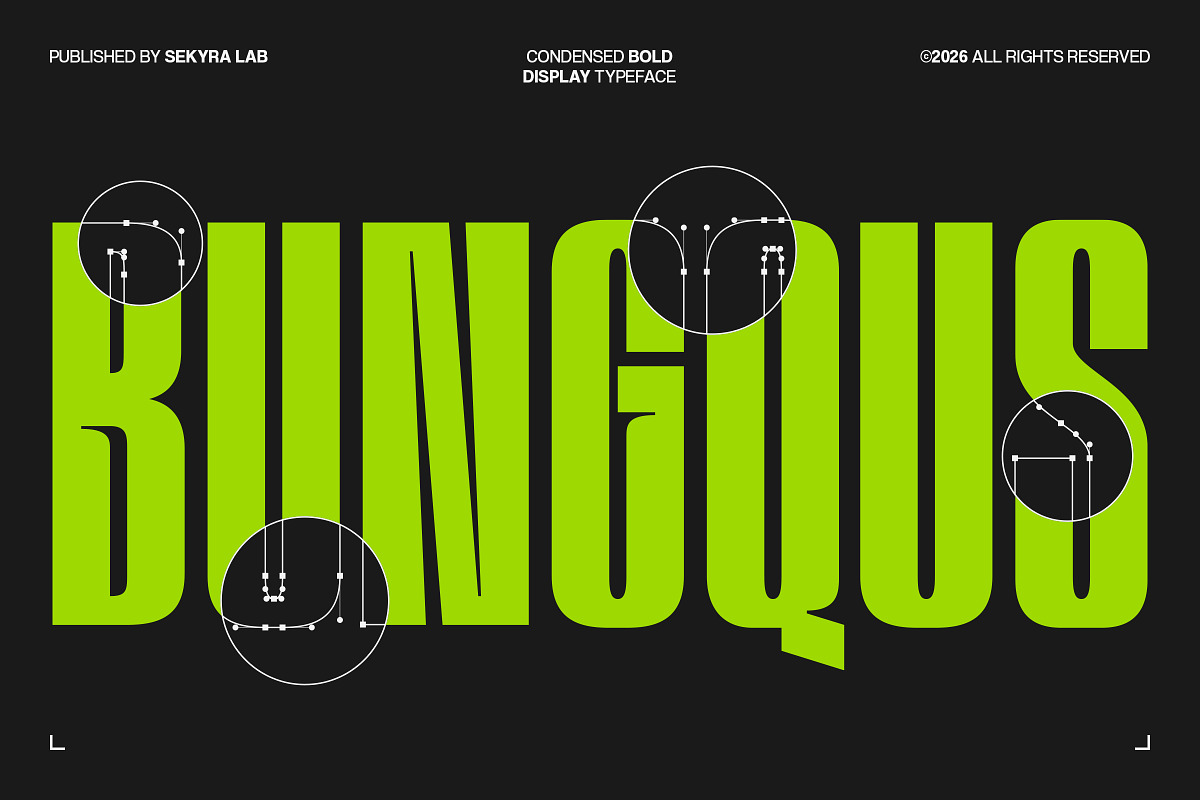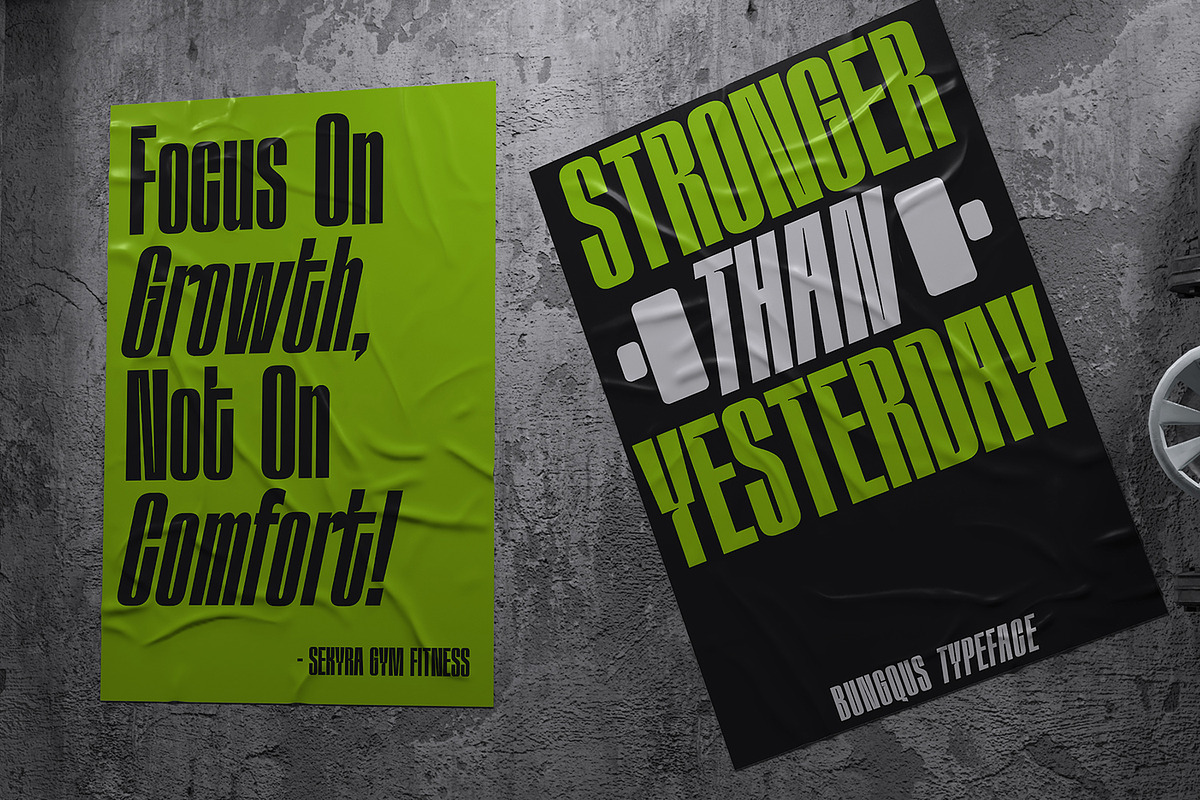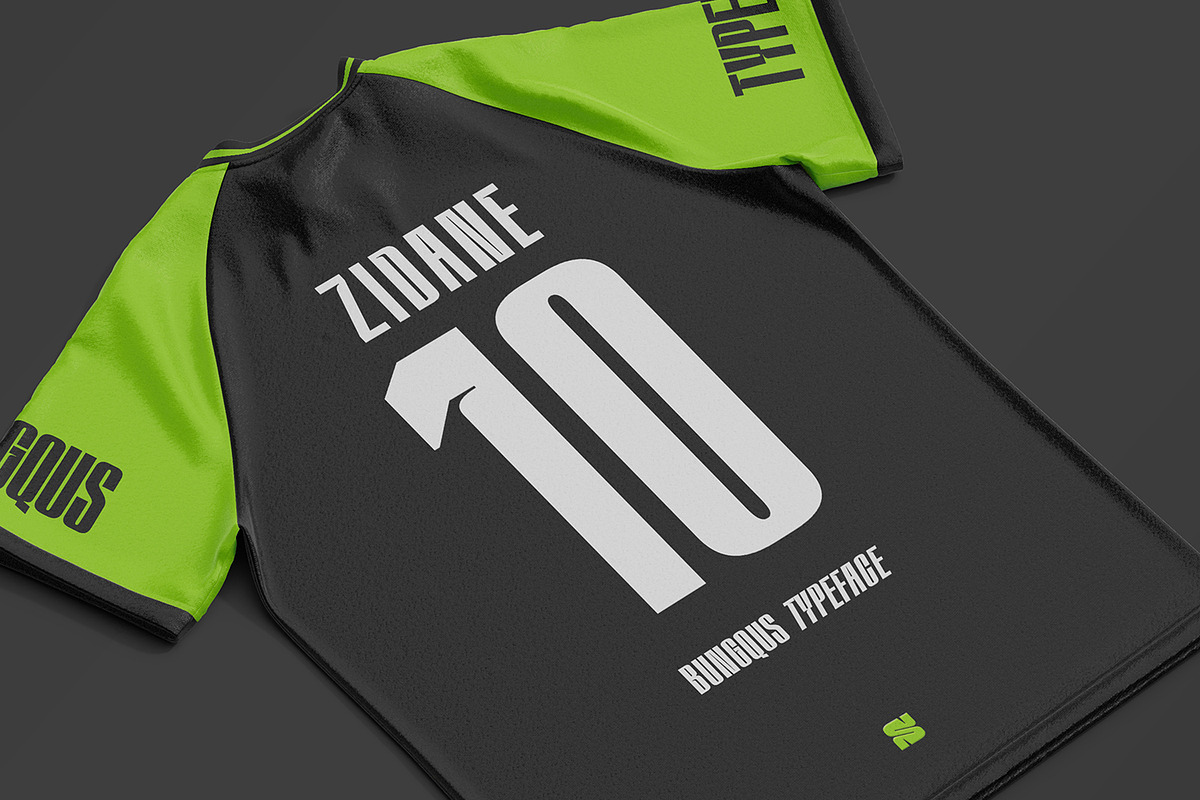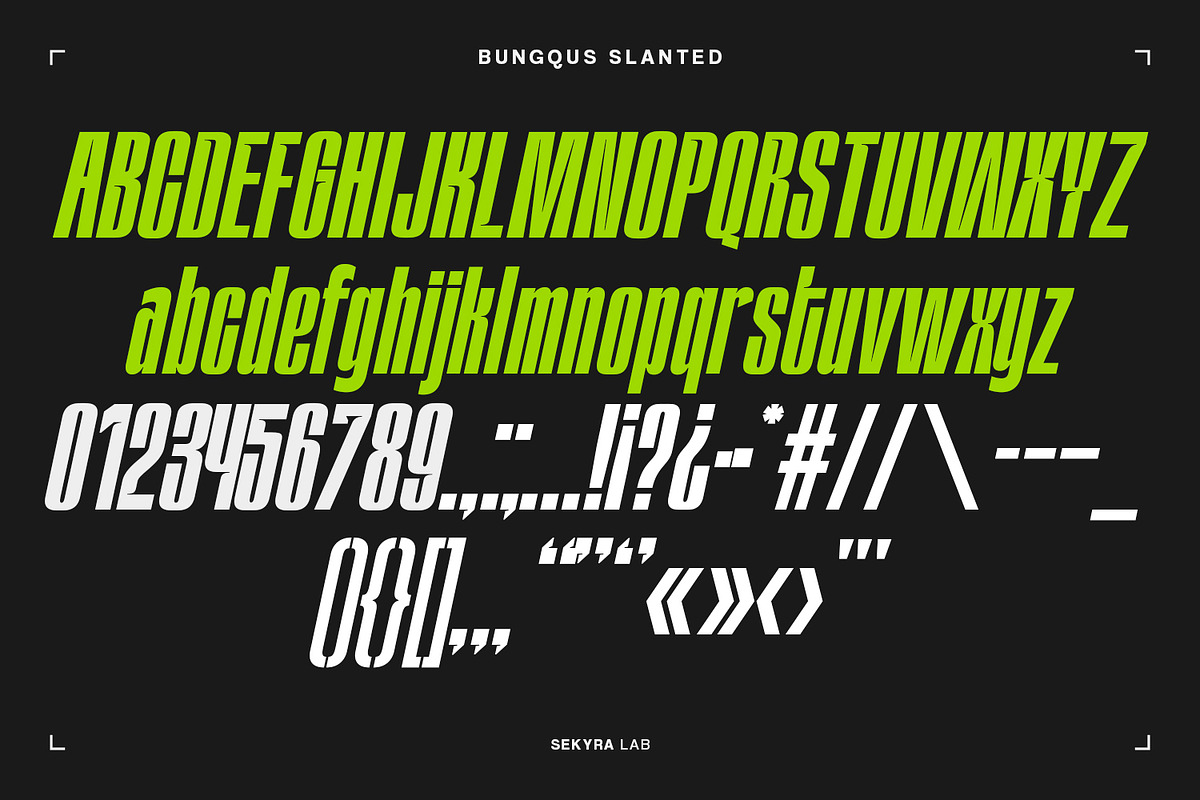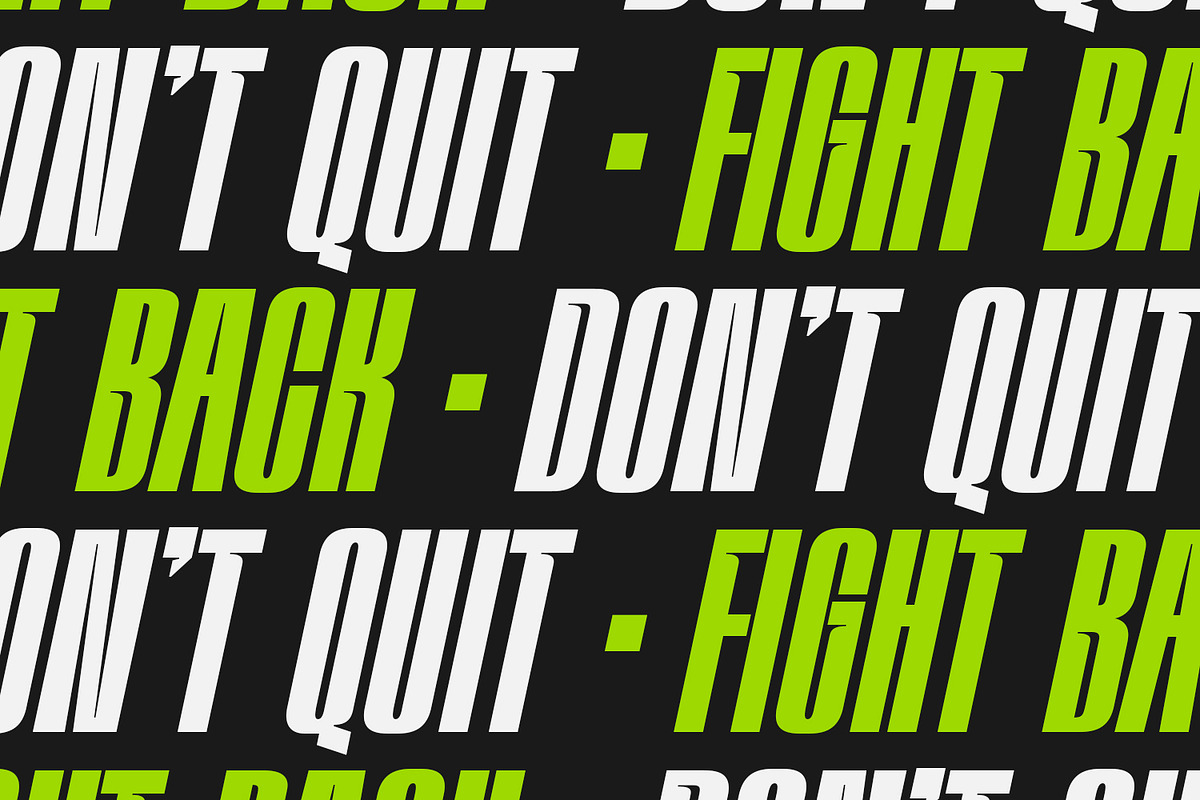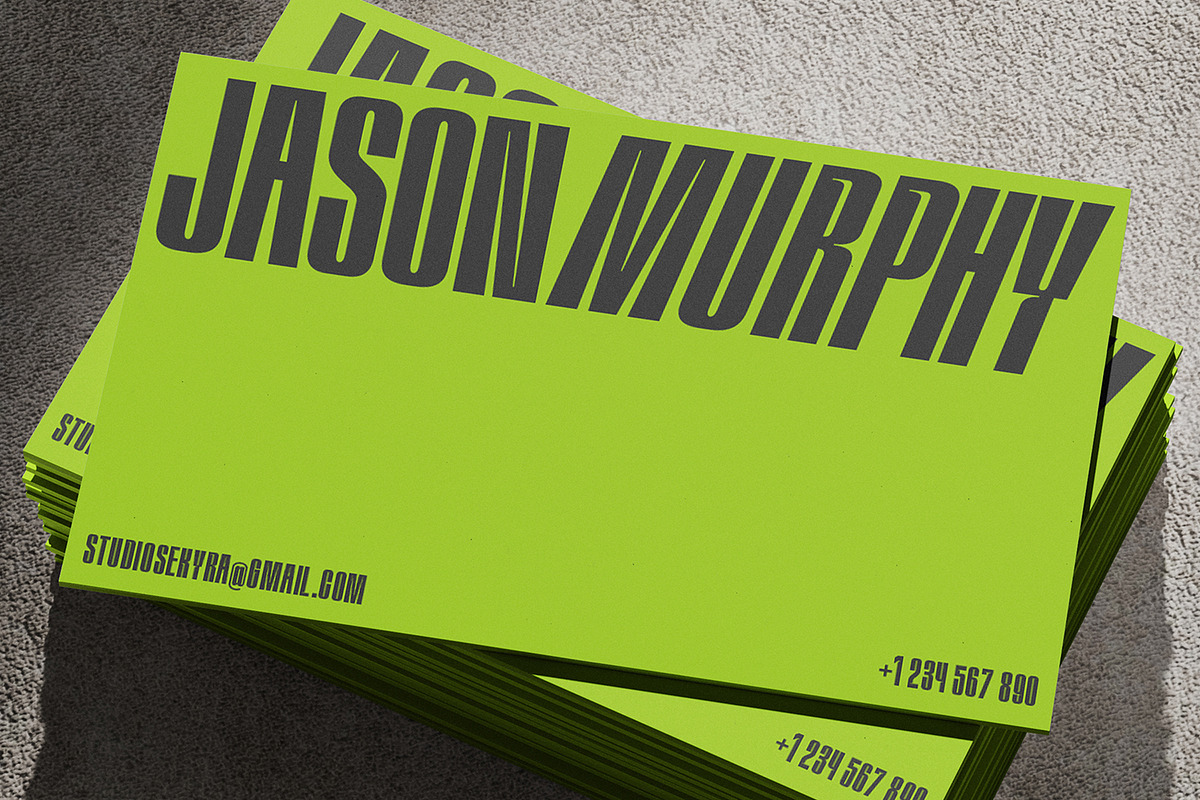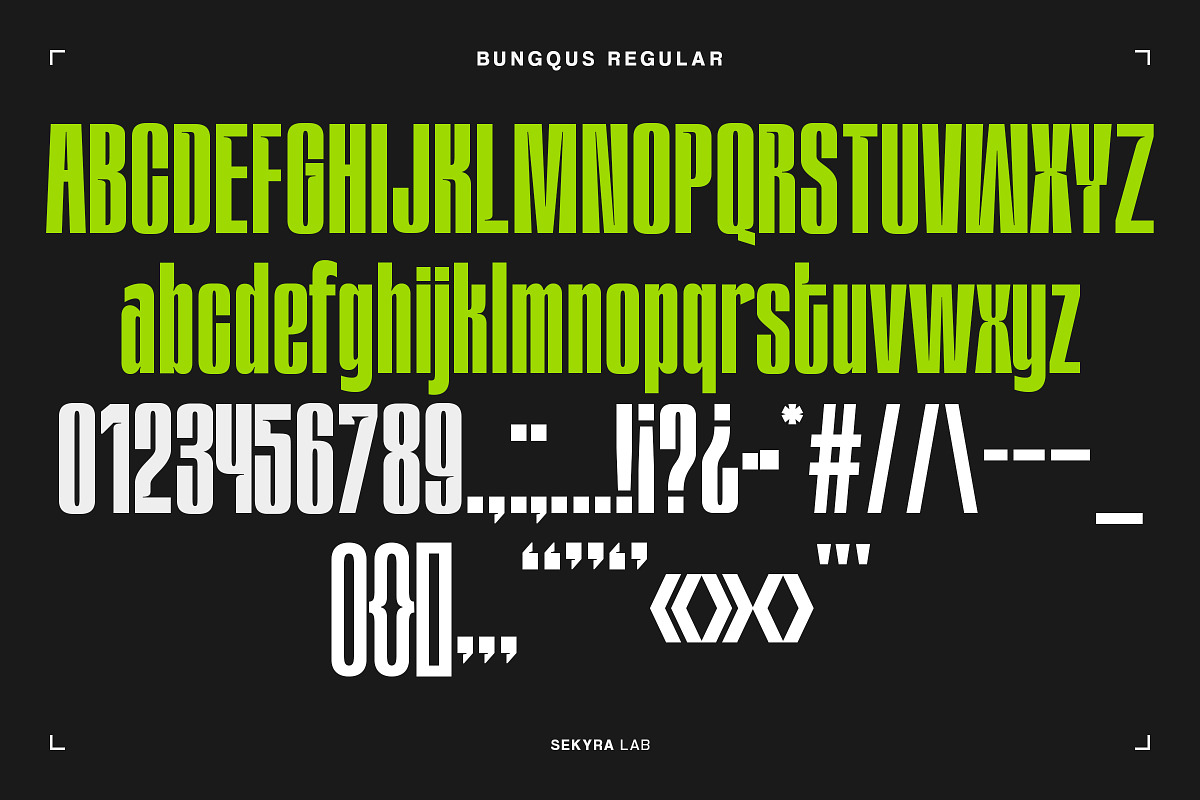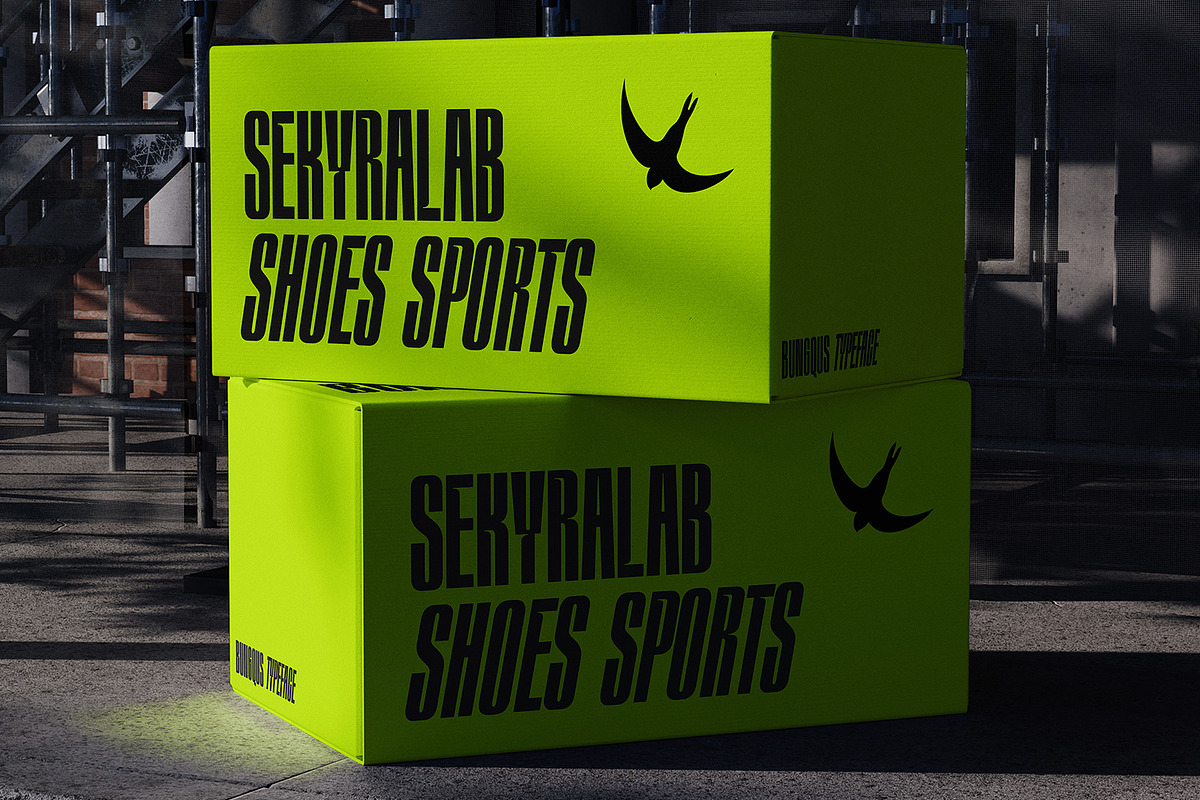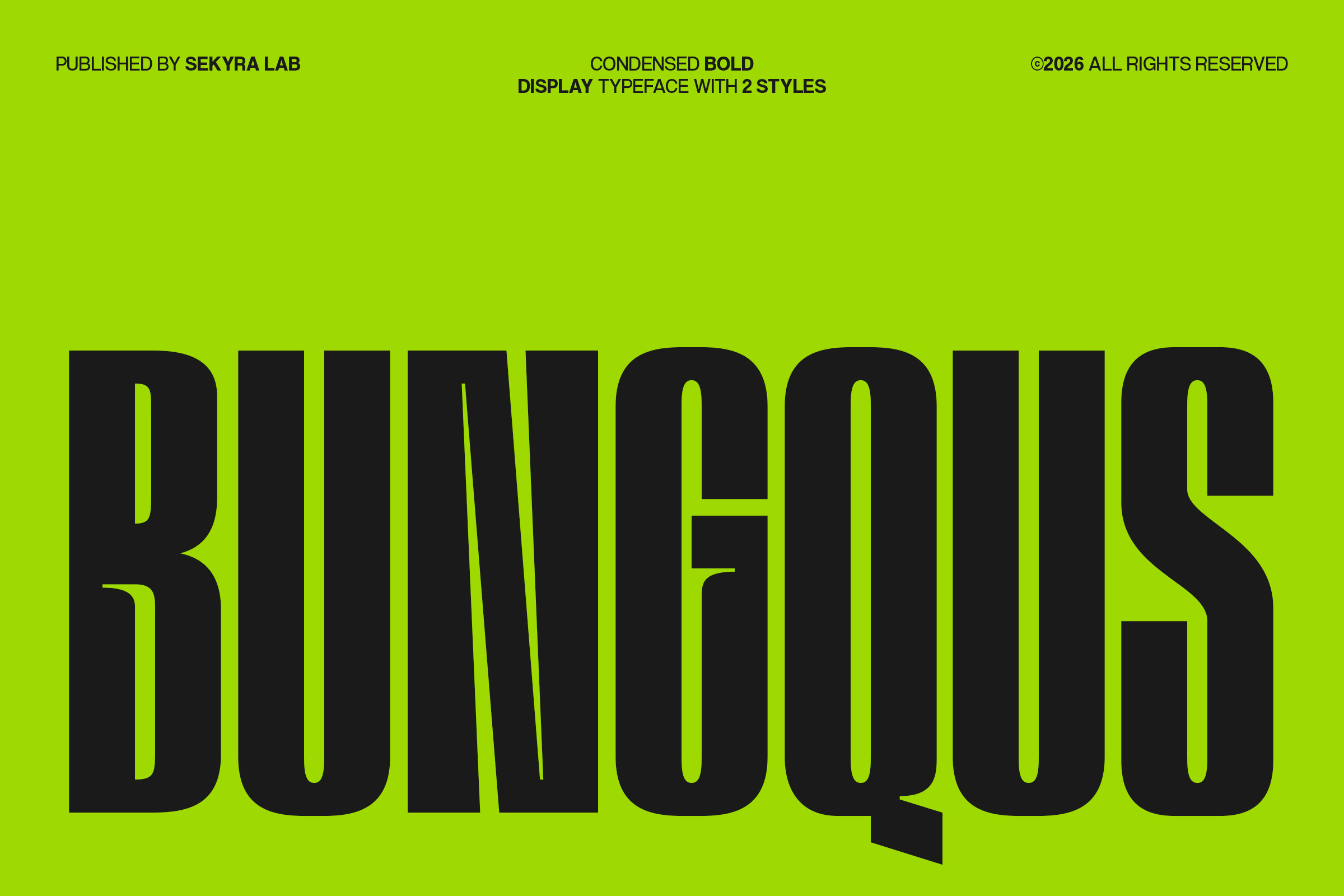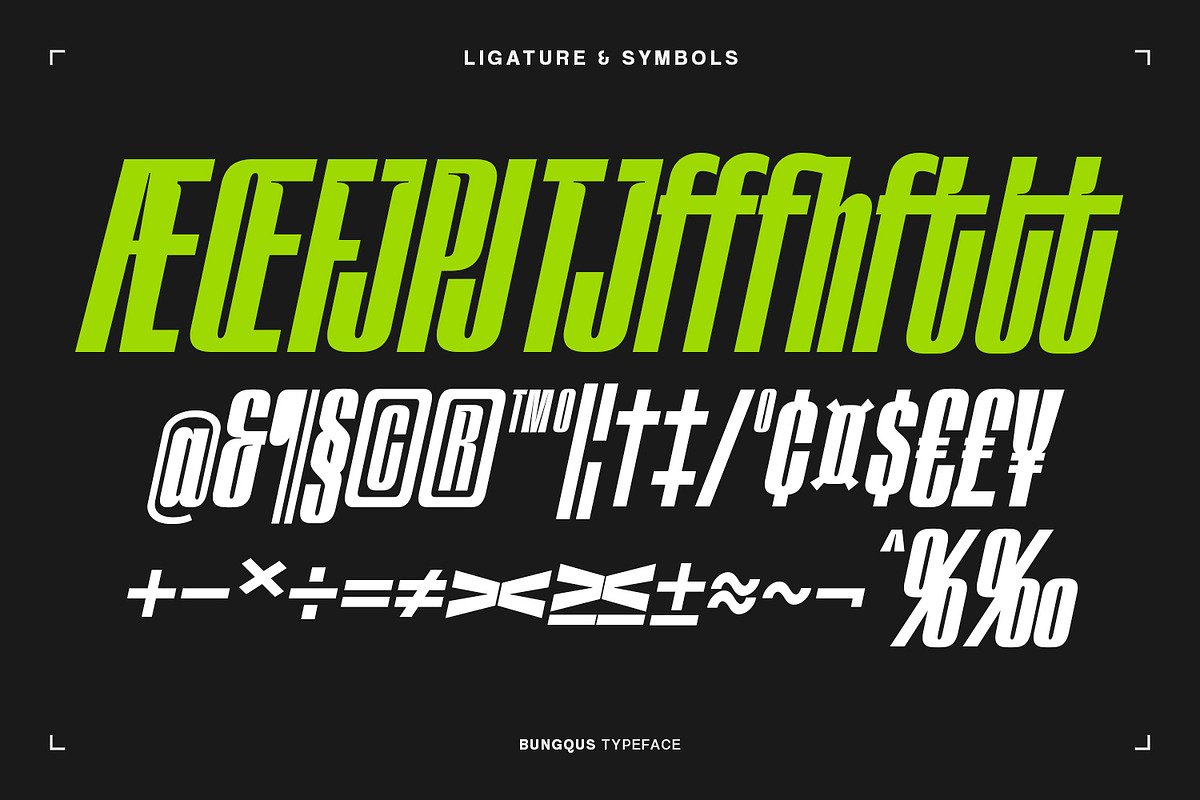
Bungqus - Condensed Display Font
Bungqus is a bold condensed display font crafted for high-impact visual design. Its tall, narrow proportions combined with sharp and expressive cuts create a powerful and modern street-style personality. With both Regular and Slanted styles, this typeface delivers versatility for dynamic and attention-grabbing layouts.
This font is perfect for posters, streetwear branding, sports graphics, packaging, editorial headlines, social media content, and logo design. It works best in projects that require bold presence, strong attitude, and modern urban aesthetics.
Key Features: • 2 Styles (Regular & Slanted) • Uppercase & Lowercase characters • Numbers & Punctuation • Ligatures & Symbols • Delivered in OTF, TTF, and WOFF formats